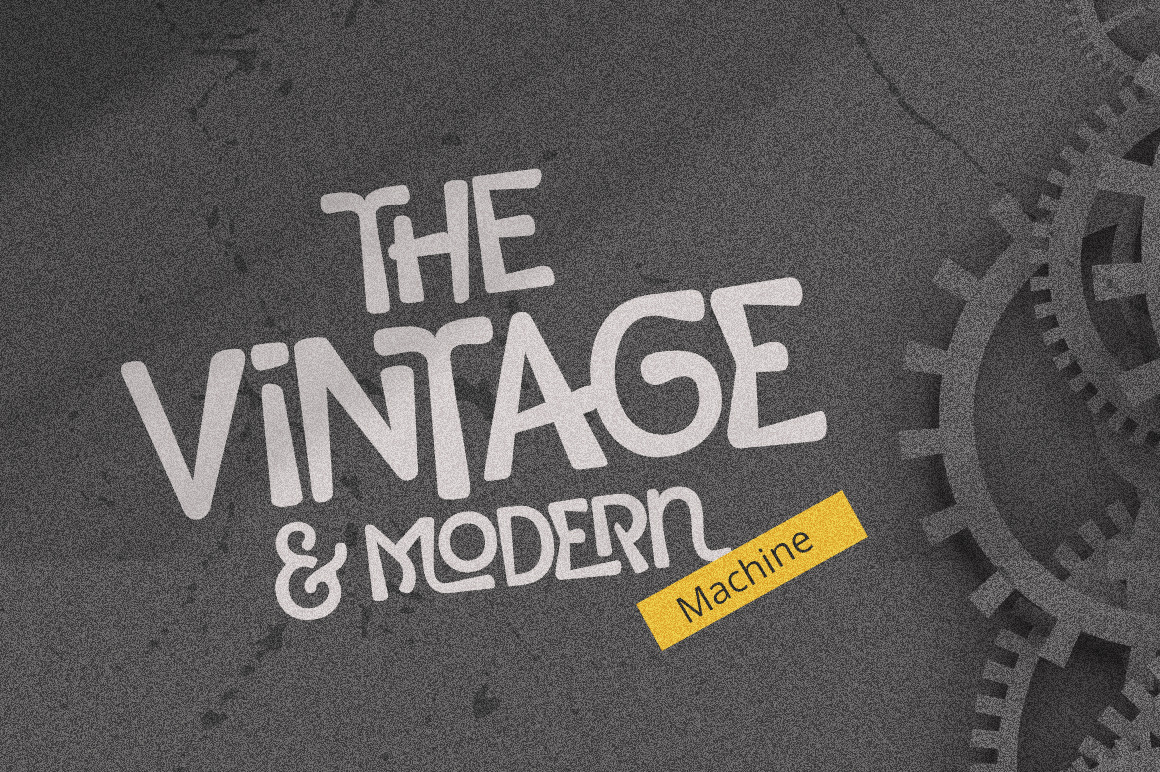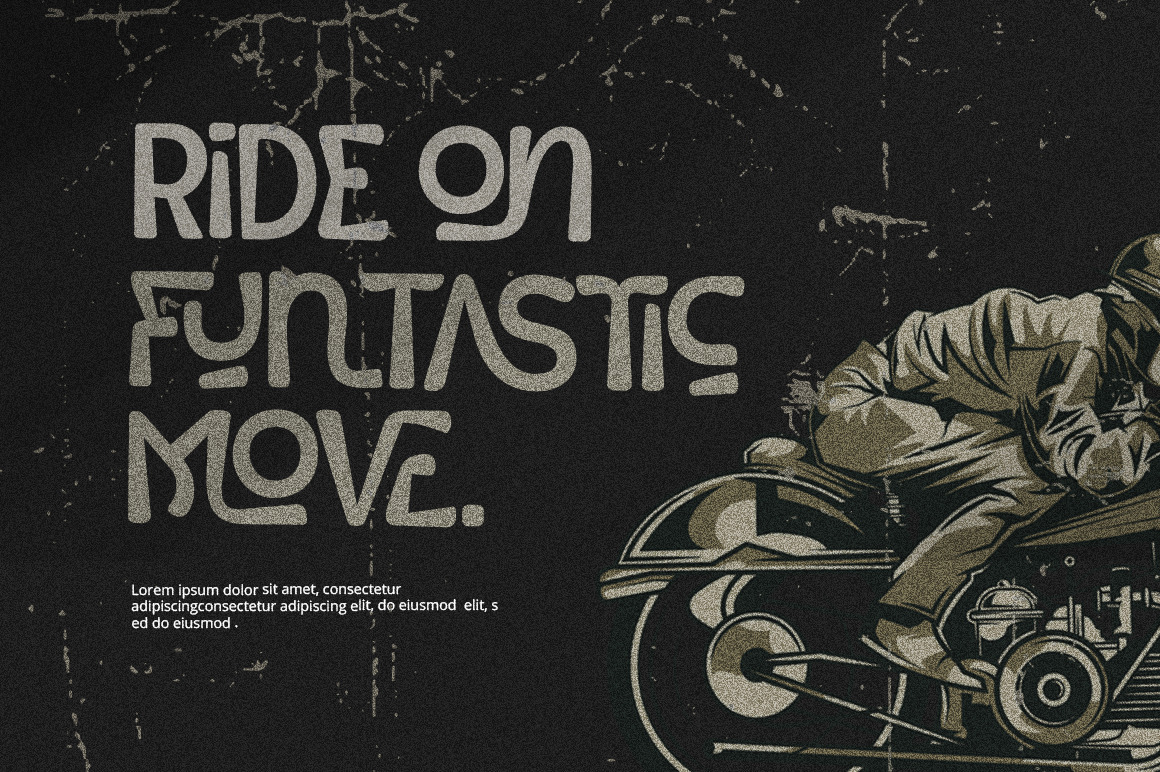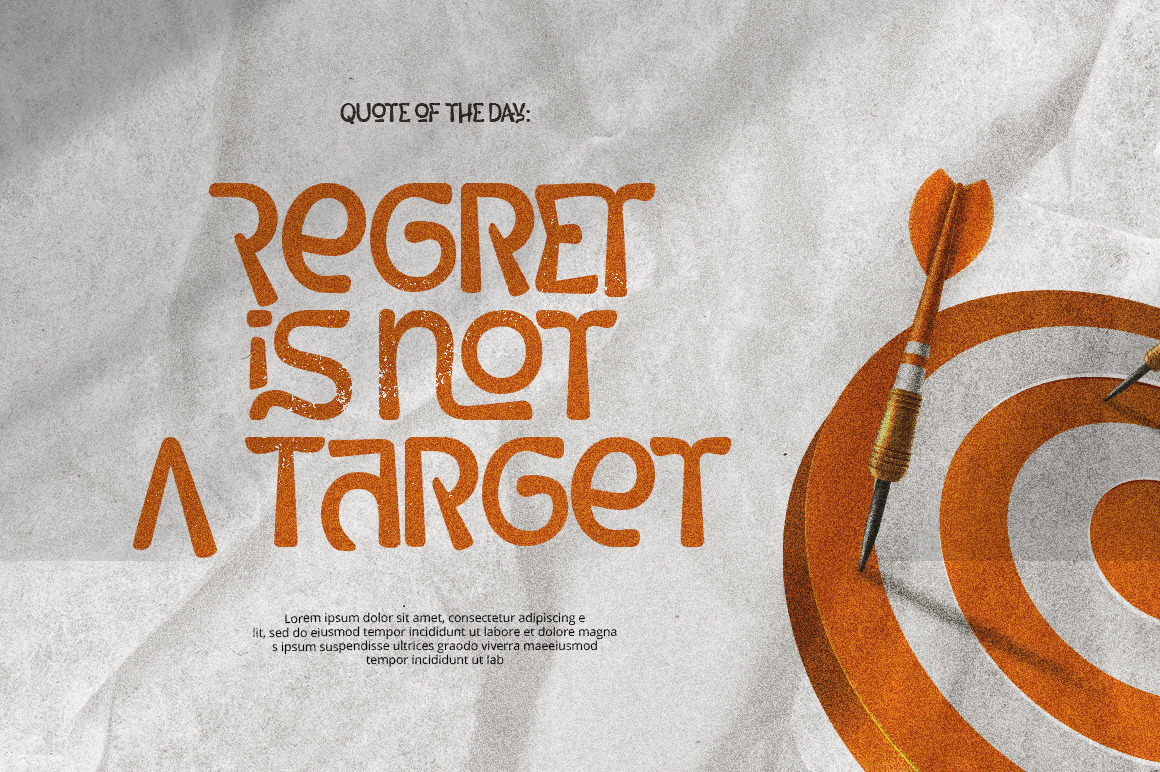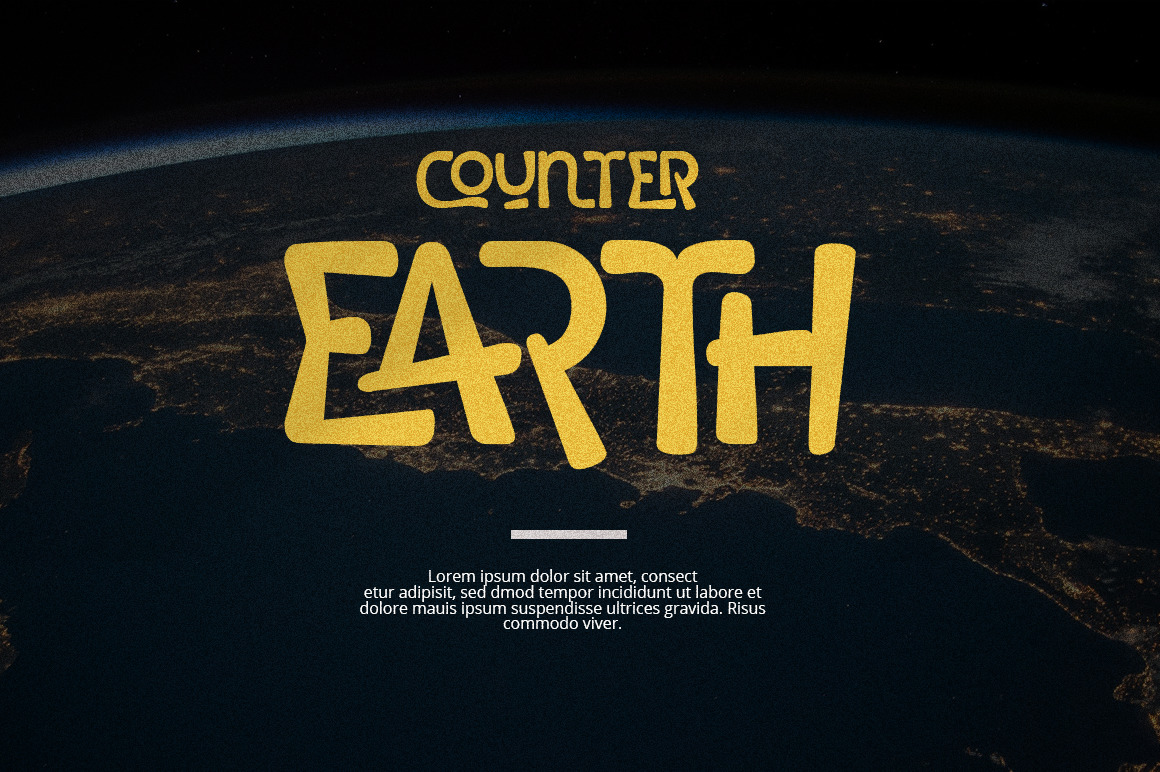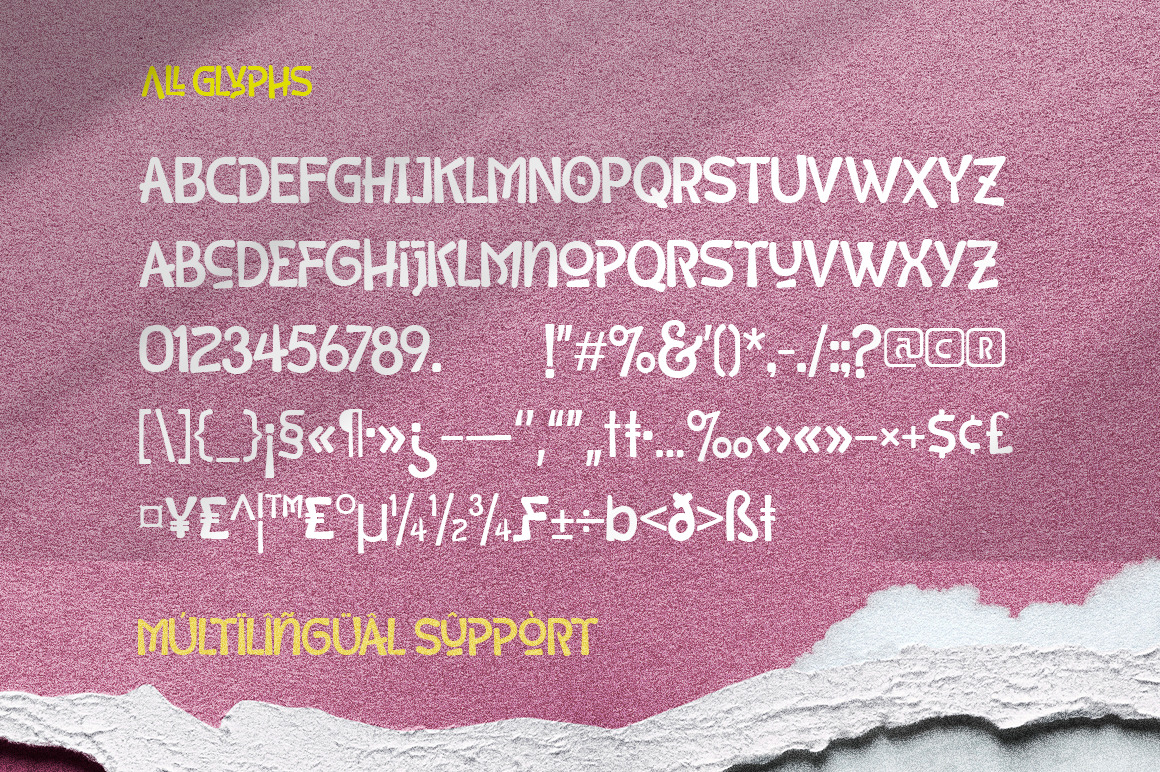
Abocat Font
Introducing Abocat – an exquisitely authentic, vintage display font. Exuding character with its distinctive shapes transitioning from bold to thin, and featuring rounded edges that lend a remarkable flair,
Abocat elevates every design it graces. Outfitted with an array of ligatures and alternates, this font flaunts charming versatility. It effortlessly adds a touch of elegance to print media like magazines, posters, and book covers, and even blends seamlessly into photography and other design projects. Experience the charm of vintage aesthetics with Abocat font.